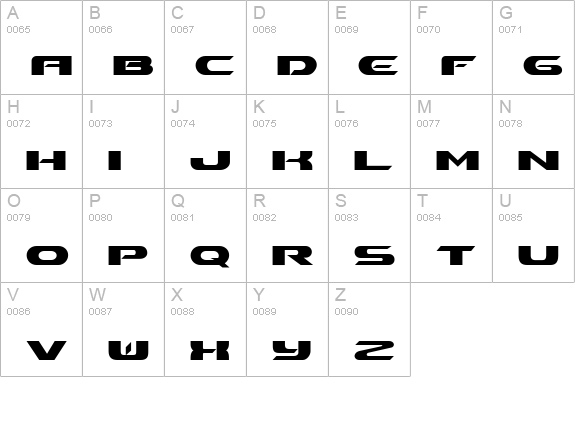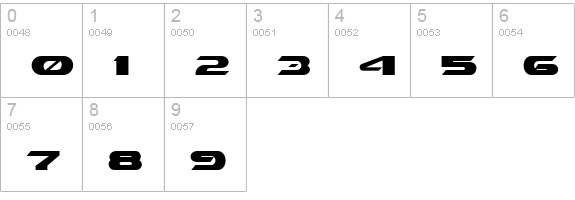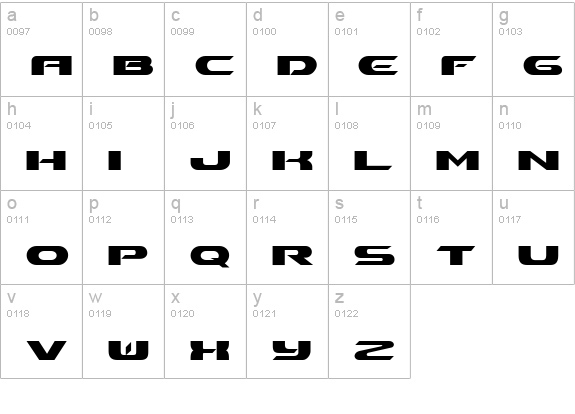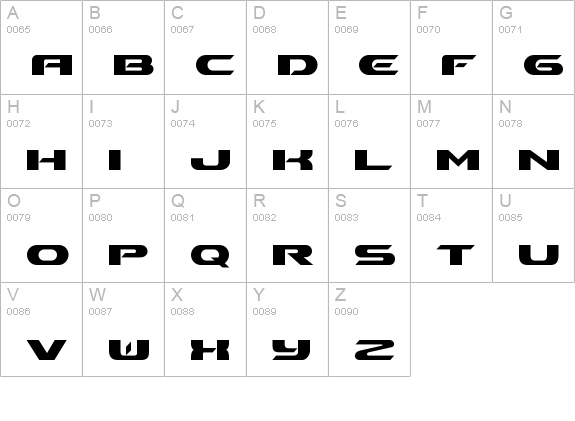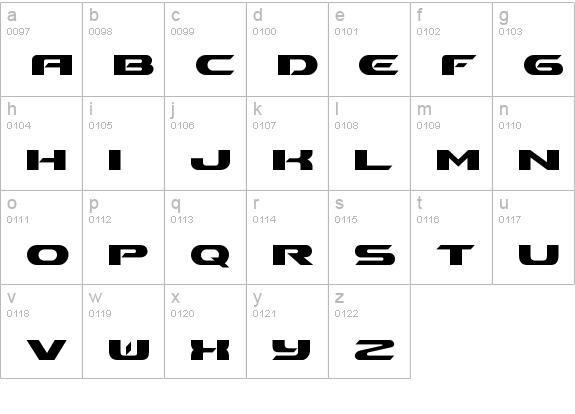
Ben Pioneer Bold is a strong, high-contrast variant in the Ben typeface family \xE2\x80\x94 well suited to headlines, attention-grabbing titles, and strong calls-to-action.
Introducing Ben Pioneer Bold font, a versatile and modern typeface designed for bold and impactful design projects. This font exudes confidence and strength with its strong, thick letterforms and clean lines. Ben Pioneer Bold is perfect for headings, titles, logos, and any design that requires a strong visual presence. What sets Ben Pioneer Bold font apart is that it is available for free download at FontsMarket.com. This means you can easily access this powerful font and use it in your projects without any cost. With its sleek and contemporary design, Ben Pioneer Bold font is sure to make a statement and elevate your designs to the next level. Download it today and unleash the power of this striking typeface in your work.